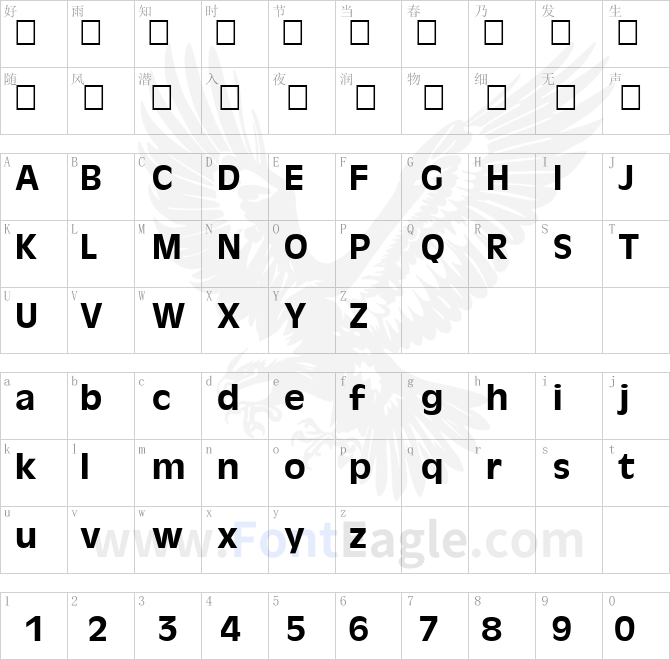
FZ-BASIC-1 is a great font, widely used in graphic design, single-page menu design, poster design and other fields, and is deeply loved by designers.FZ-BASIC-1 download.